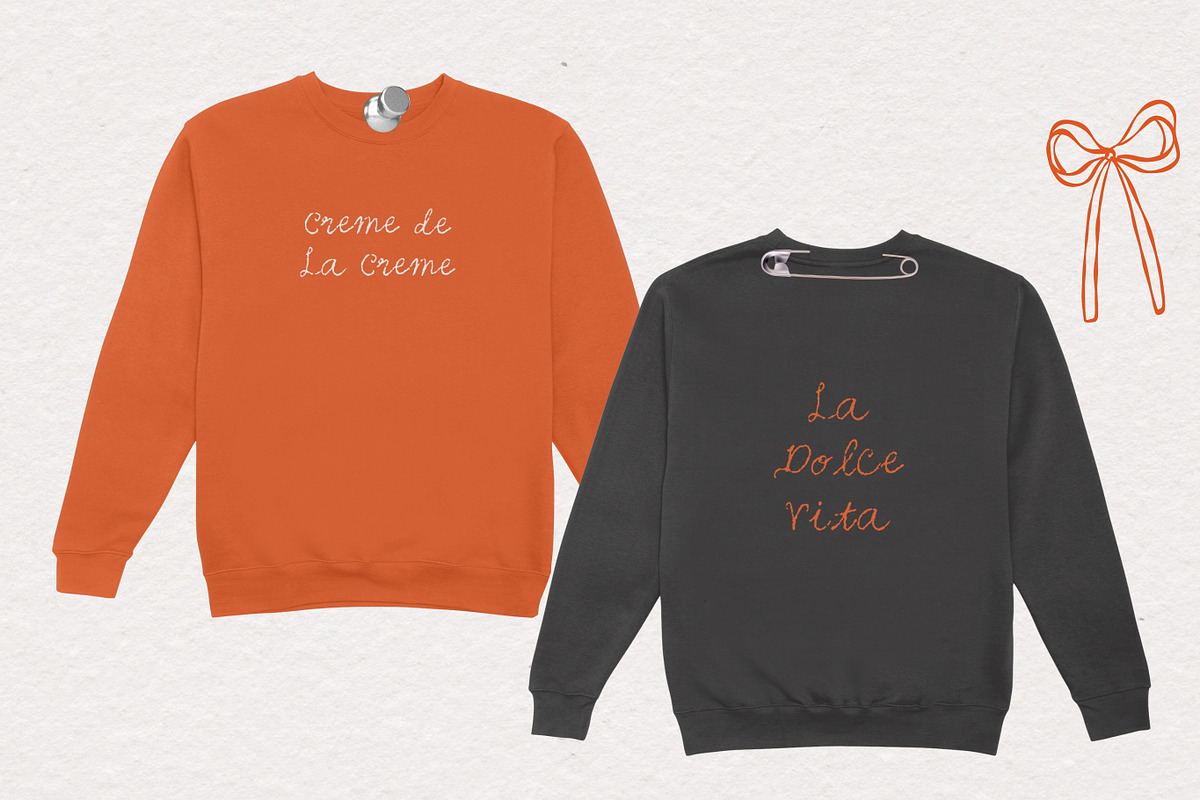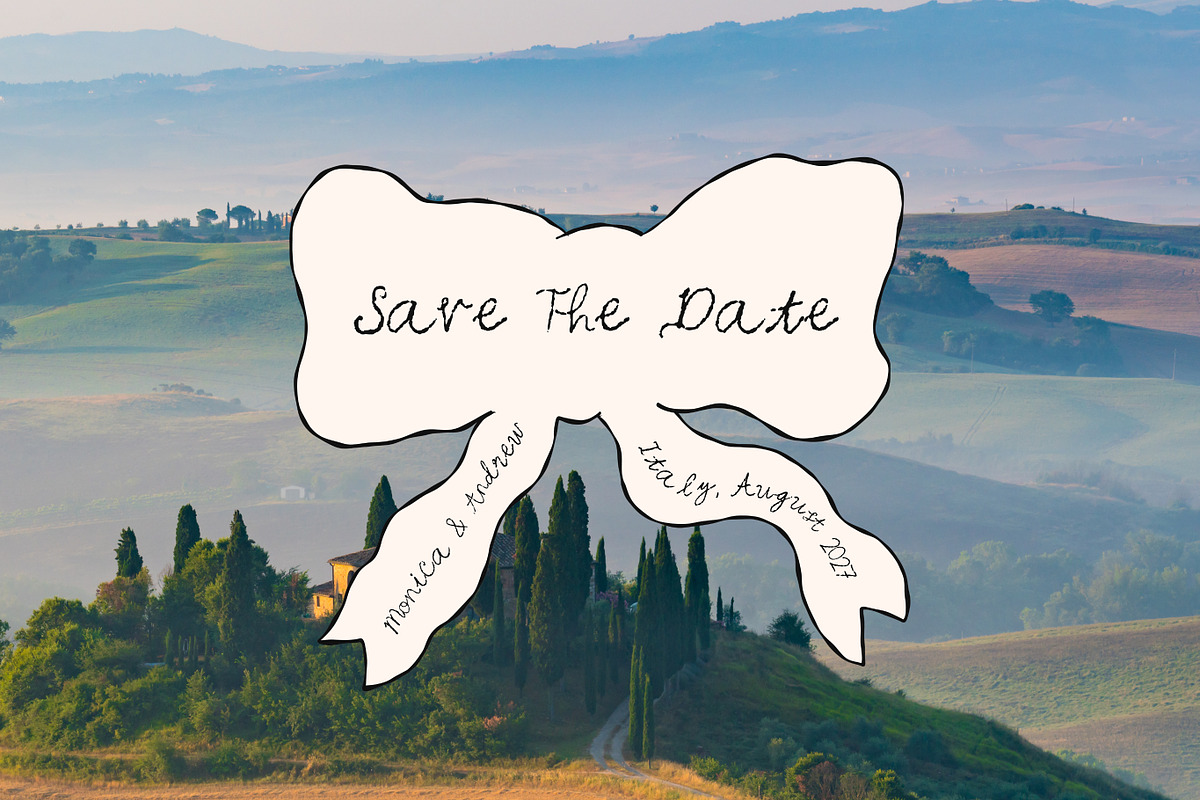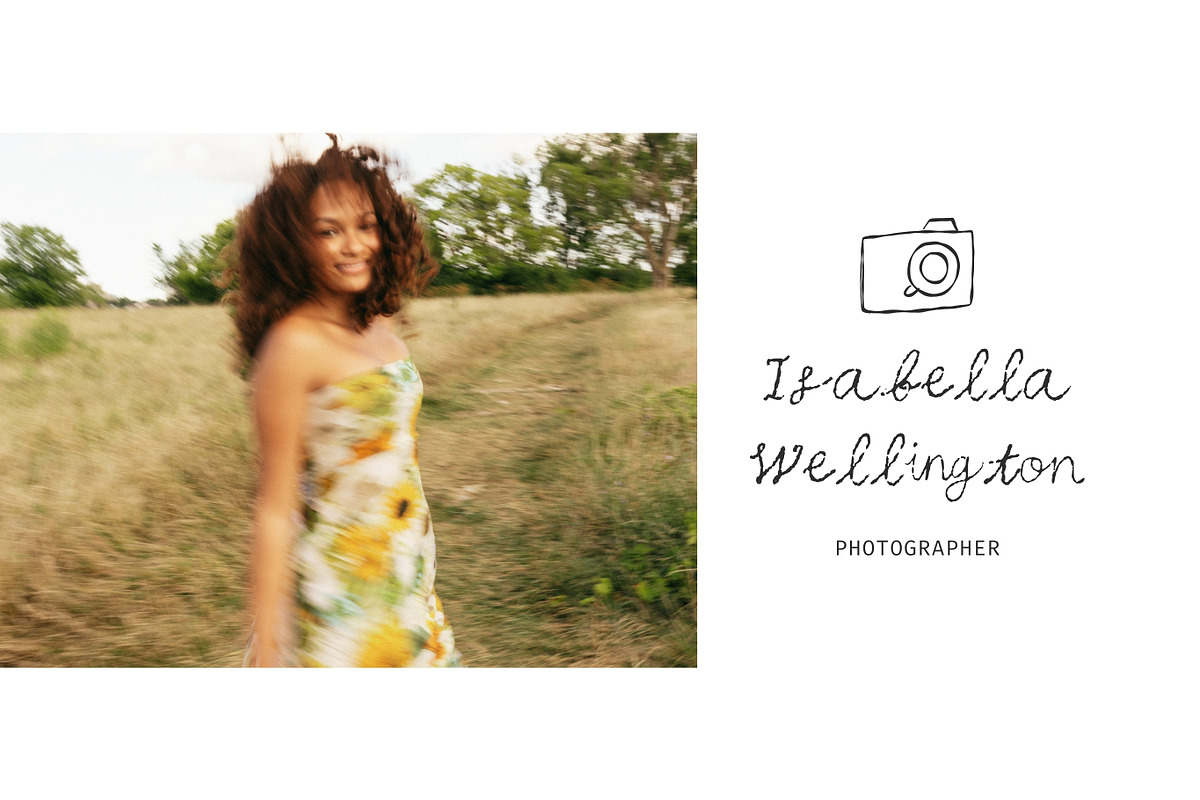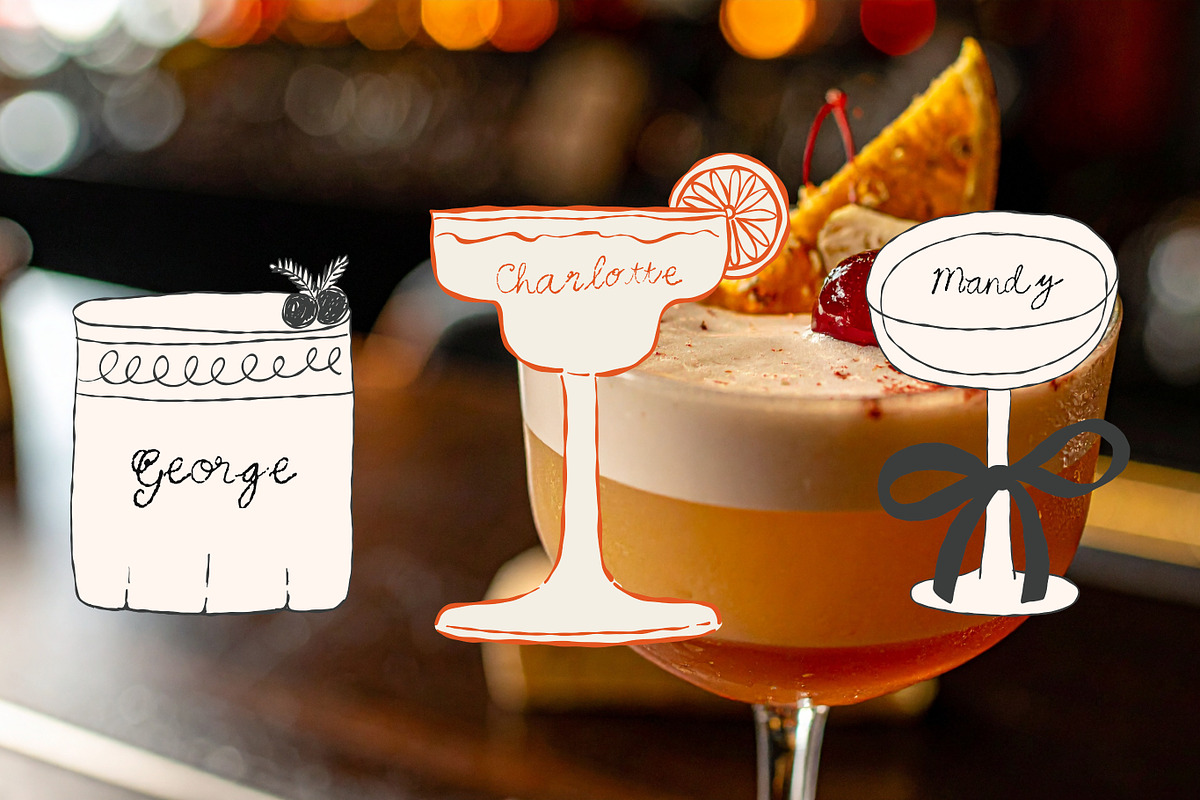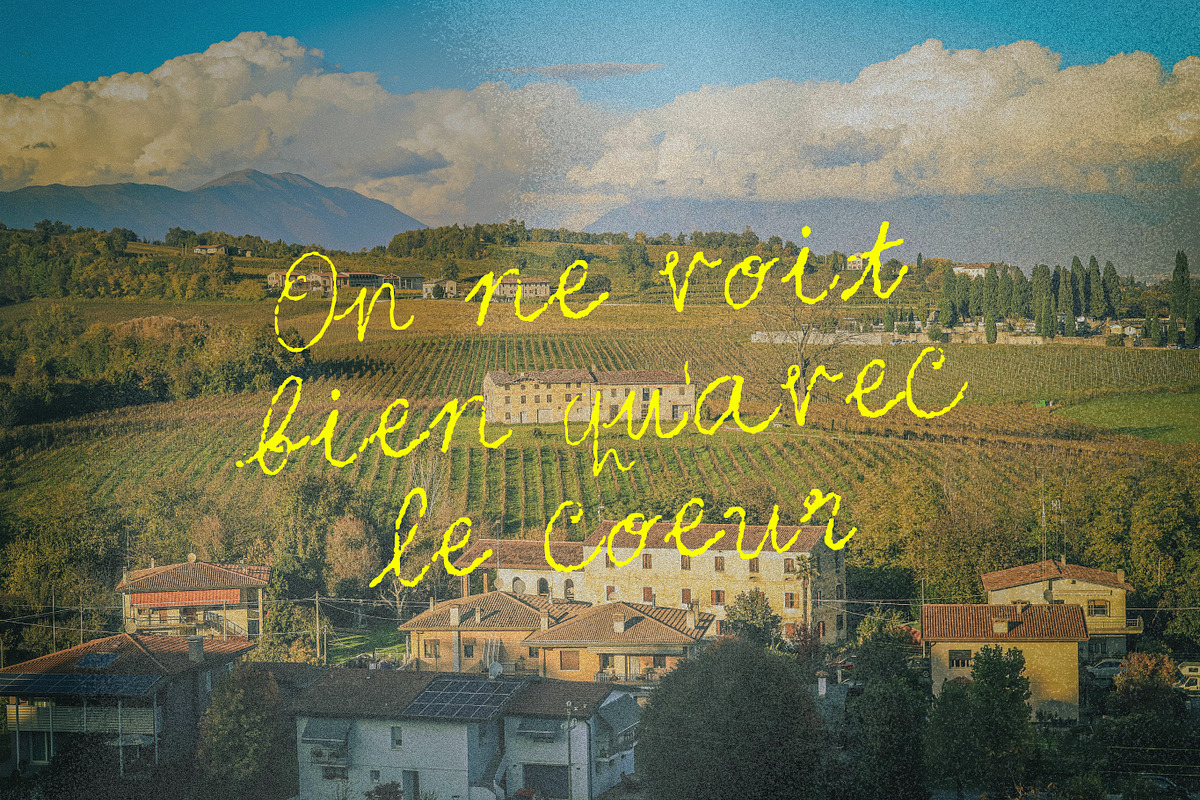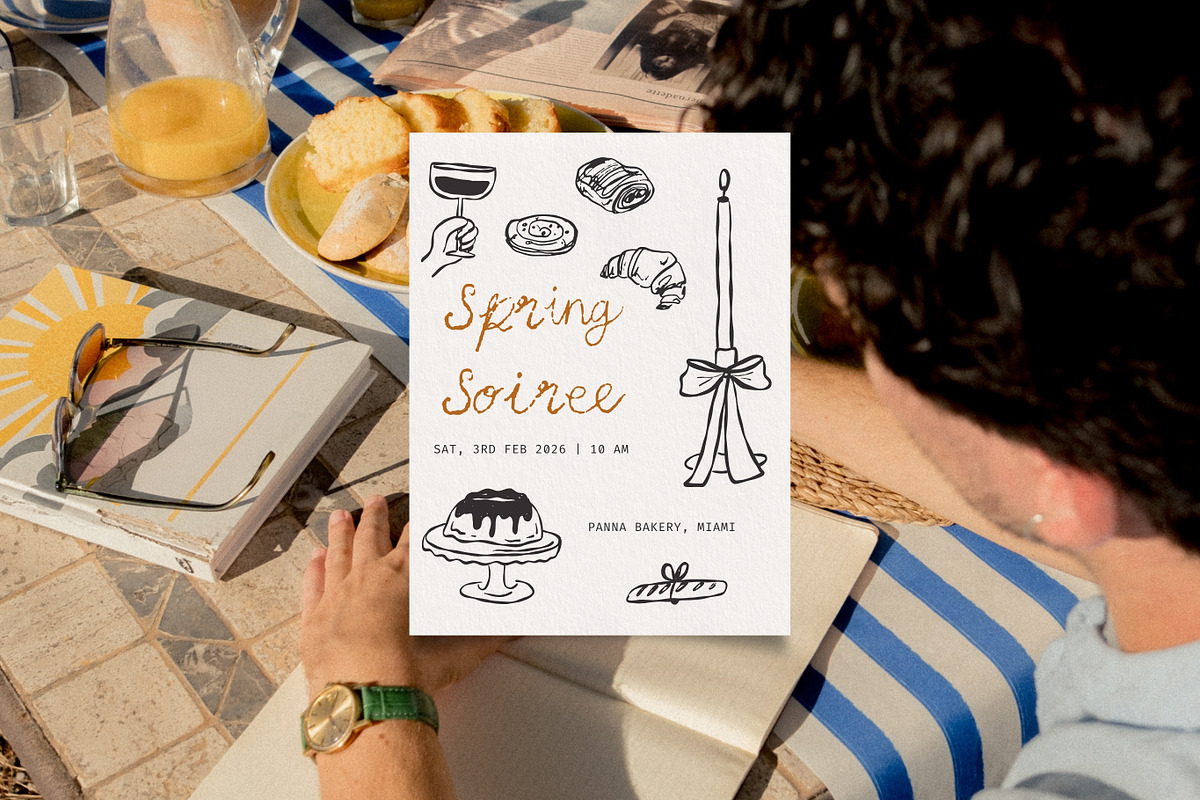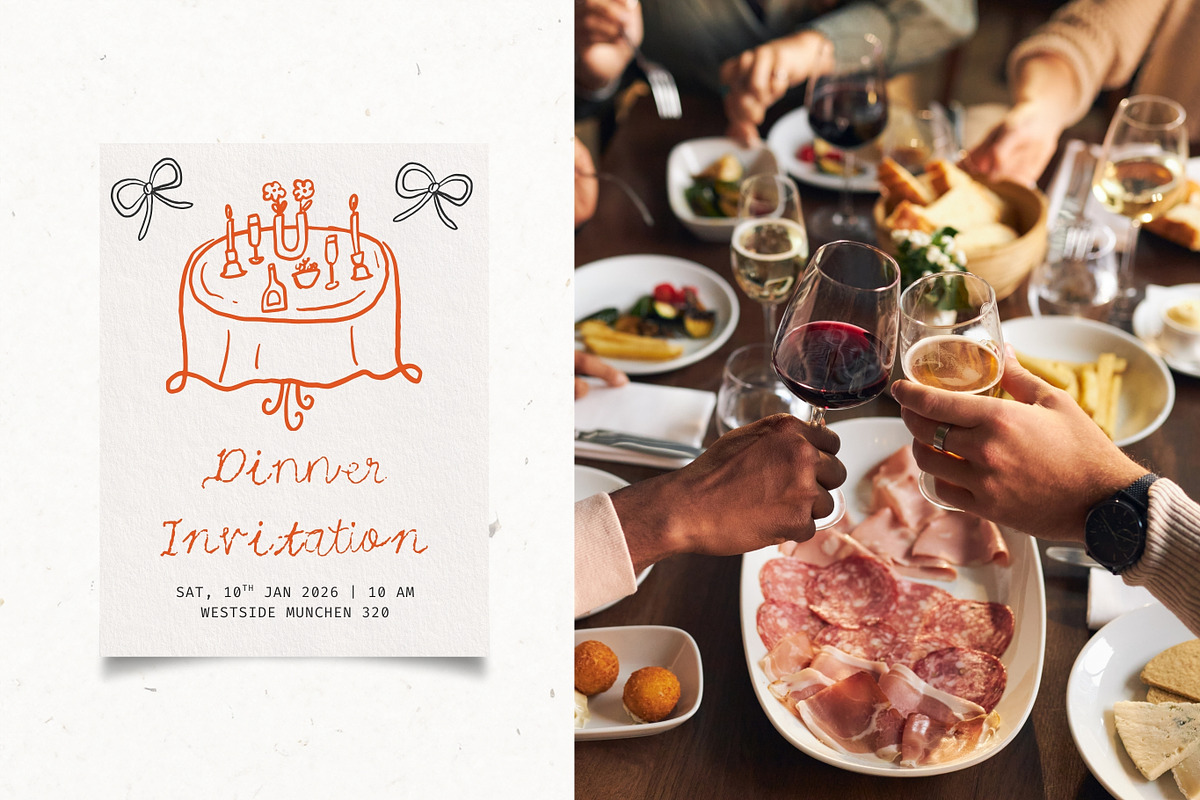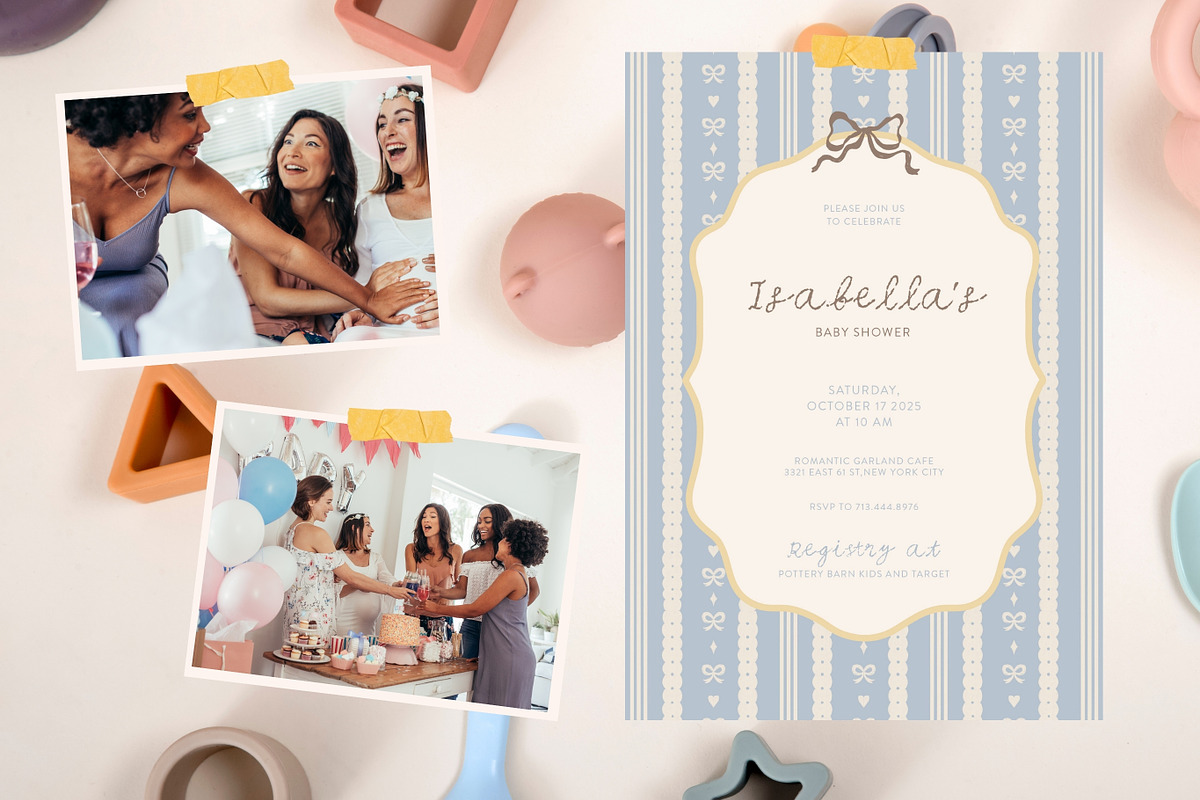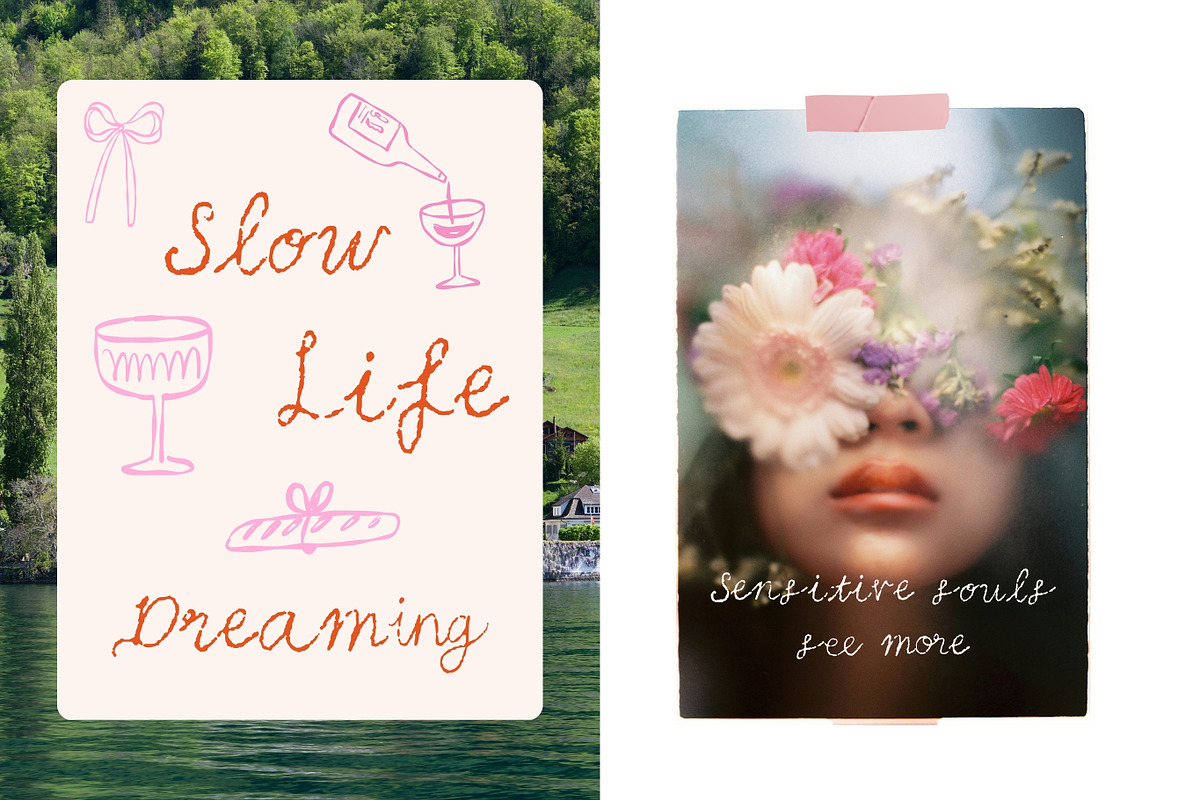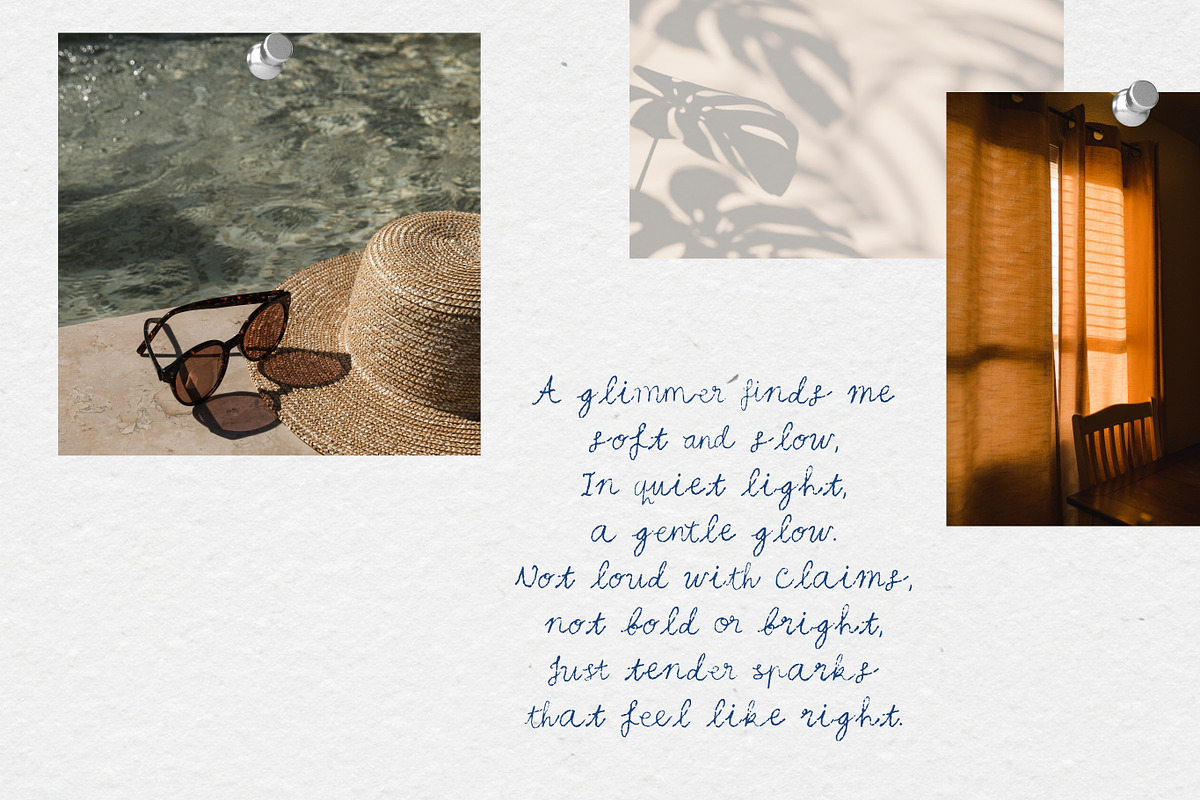
Dreamy Chalk Handwritten Script Font
Dreamy Chalk is a soft, handwritten script font inspired by chalk-like strokes and delicate hand lettering. It captures a dreamy, intimate feel—perfect for designs that want to feel personal, romantic, and slightly whimsical.
Each character is drawn to feel organic and imperfect, giving your text a natural handwritten charm that works beautifully for invitations, scrapbooks, and heartfelt moments.
- Numbers (0–9)
- Punctuation & symbols
- ~!@#$%^&*()-_+=[ ]{}|;:'"./? £€¥₹₽`
- Ligatures for smoother, more natural lettering flow
Supported Languages -English
- French (à â ä ç é è ê ë î ï ô ù û ü)
- Spanish (á é í ñ ó ú ü)
- Scrapbook & journaling designs
- Whimsical wedding invitations
- Handwritten-style postcards & notes
- Baby shower & birthday invitations
- Dinner invitations, soirées, and intimate gatherings
- Romantic quotes and personal stationery
- Coffee shop & café branding
- Bakery logos & packaging
Small business branding & signage
Why You’ll Love It Dreamy Chalk brings warmth and emotion to your designs. Its chalky texture and flowing script make every word feel handwritten with care—ideal for projects that celebrate connection, softness, and creativity.
Style & Pairings Pairs beautifully with:
- Soft paper textures & torn paper backgrounds
- Floral illustrations & ribbon doodles
- Minimal serif or clean sans-serif fonts
- Neutral, pastel, or vintage-inspired color palettes